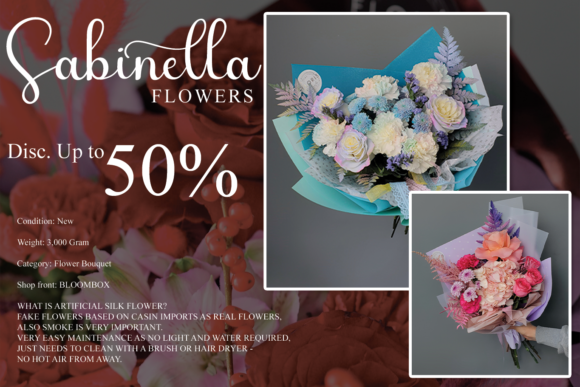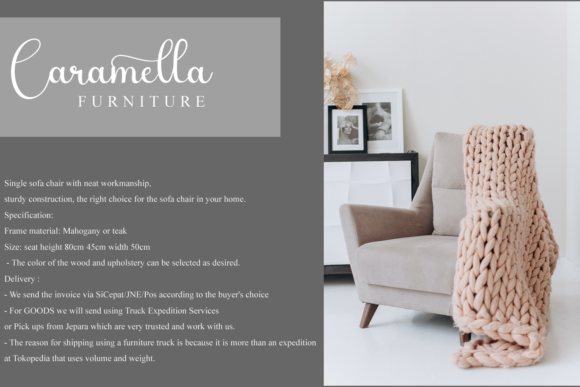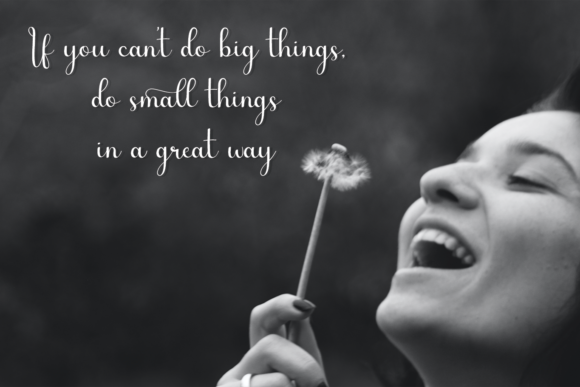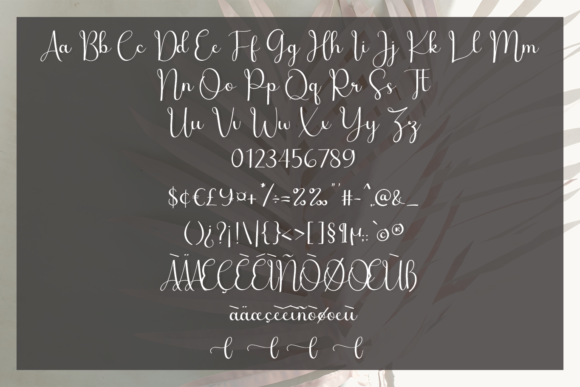
Introduction to My Jolly Font
As designers, we’ve all been there – staring at a blank canvas, trying to bring our creative vision to life. But sometimes, all it takes is one special font to set the tone for a project. For me, that font is My Jolly Font. Its flowing and graceful script style is like a breath of fresh air, and I just can’t get enough of it!
What I love most about My Jolly Font is its versatility. Whether you’re creating gorgeous wedding invitations, beautiful stationary art, or eye-catching social media posts, this font is sure to elevate your design game. And the best part? It’s a high-quality, free download, making it an invaluable resource for any designer working on a creative project.
With its transparent background and sleek design, My Jolly Font is the perfect addition to any design project. So why not give it a try and see how it can bring your next creative project to life?
Key Features of My Jolly Font
- High-quality font with a unique and playful design, perfect for creative projects and design resources.
- Designed to be highly legible, even at small font sizes, making it ideal for use in a variety of creative projects.
Honest Review: My Jolly Font
As a designer, I’m always on the lookout for high-quality design resources to elevate my creative projects. Recently, I stumbled upon My Jolly Font and was excited to put it to the test.
Here are some aspects of My Jolly Font that I appreciated:
- ✨ High-quality design: The font is crisp, clear, and well-designed, making it perfect for a variety of creative projects.
- ✨ Transparent background: The font comes with a transparent background, allowing for easy integration into any design.
- ✨ Free download: I appreciate that My Jolly Font is available for free download, making it accessible to designers of all levels.
While I enjoyed using My Jolly Font, there are a few limitations to consider:
- ⚠️ Limited character set: The font only includes a basic character set, which may not be sufficient for more complex design projects.
- ⚠️ Limited customization options: While the font is customizable, there are limited options available, which may limit its use in certain creative projects.
Overall, I was impressed with My Jolly Font and would recommend it as a design resource for simple to moderate creative projects. However, it may not be suitable for more complex or professional projects.
My Jolly Font is a high-quality, free download font perfect for any creative project. With its unique and playful style, it’s an excellent design resource for adding a personal touch to your work.
Tips and Best Practices
To get the most out of My Jolly Font, be sure to:
- Use it with a transparent background for a clean and modern look.
- Experiment with different font sizes and styles to add emphasis and visual interest.
My Jolly Font is perfect for:
- Designing children’s books and educational materials.
- Creating social media graphics and advertisements.
- Developing brand identities and logos.
Alternatives to My Jolly Font
Great Vibes Font is a high-quality, cursive script font perfect for creative projects that require a touch of elegance. It’s ideal for use in logos, branding materials, and advertisements. Great Vibes Font is available for free download and offers a transparent background, making it easy to integrate into any design.
Compared to My Jolly Font, Great Vibes Font has a more refined and sophisticated look, making it suitable for a wider range of design applications. While My Jolly Font is best suited for playful and casual designs, Great Vibes Font can add a level of sophistication to any creative project.
Alex Brush Font is a beautiful, handwritten font that’s perfect for designers looking for a unique and creative touch. It’s ideal for use in invitations, posters, and other promotional materials. Alex Brush Font is available for free download and offers a transparent background, making it easy to customize and integrate into any design.